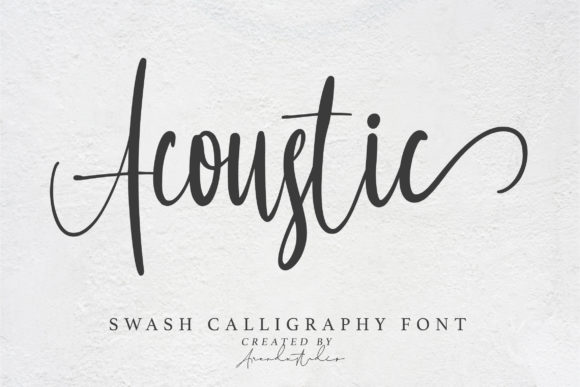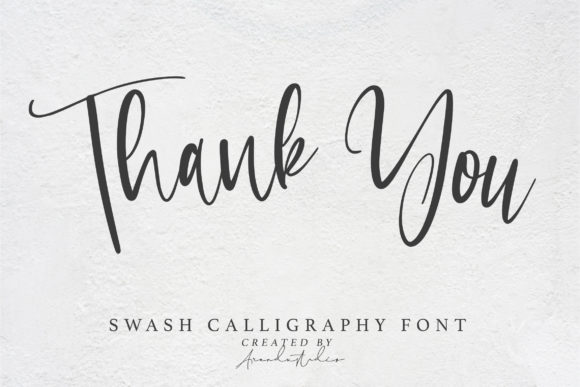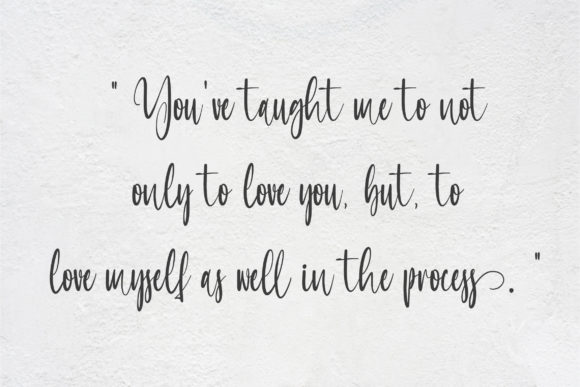
About Acoustic Font
Introducing “Acoustic,” an elegant script font that captures the essence of timeless classic calligraphy with a contemporary twist. Its impeccable form and balanced letterforms make it the perfect choice to enhance the beauty of your projects.
The design of “Acoustic” strikes a perfect balance between thin and thick strokes, creating an elegant and harmonious flow. The letters are carefully crafted with precise curves and gentle swashes, adding a touch of sophistication and grace to your designs. Whether you’re designing a logo, creating wedding invitations, or working on other creative projects, “Acoustic” will elevate the overall aesthetics.
The contemporary atmosphere of “Acoustic” gives it a modern and versatile appeal. It is well-suited for various design contexts, from branding and advertising to packaging and social media graphics. With its clean and legible letterforms, this font maintains its elegance and readability even at smaller sizes, ensuring your message comes across effortlessly.
One of the strengths of “Acoustic” lies in its versatility. The font can adapt to different design needs, allowing you to create stunning logos that exude sophistication and professionalism. It also lends itself well to wedding invitations, adding an elegant touch to the couple’s special day. Moreover, “Acoustic” can enhance the visual appeal of your packaging designs, social media posts, and other creative projects.
With “Acoustic,” you have the freedom to experiment and unleash your creativity. Its varied letterforms and swashes offer numerous possibilities for customization, allowing you to create unique and personalized designs. Whether you prefer a clean and minimalist look or want to add more flourishes and decorative elements, “Acoustic” provides the flexibility to achieve your desired aesthetic.
By choosing “Acoustic,” you’re not only getting a beautifully designed script font but also a tool to enhance the overall beauty of your projects. The impeccable form and contemporary atmosphere of this font will captivate your audience and leave a lasting impression. Let “Acoustic” add a touch of elegance and sophistication to your branding, invitations, and other design endeavors.
Embrace the timeless beauty of “Acoustic” and let its contemporary elegance elevate your projects. Whether you’re designing for personal or professional use, this font is the perfect companion to bring your creative vision to life. Discover the versatility and impeccable form of “Acoustic” and unlock a world of possibilities for your designs.